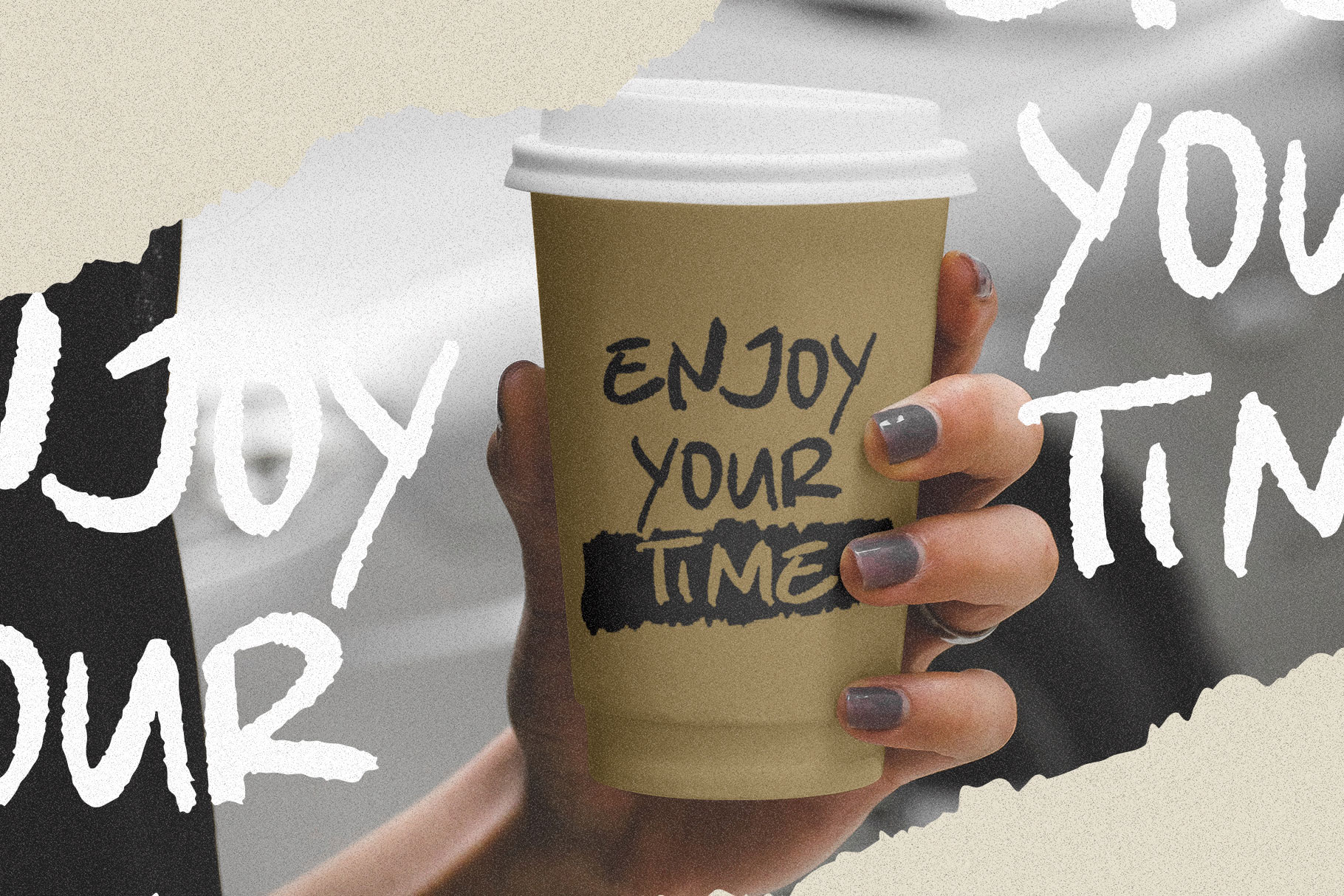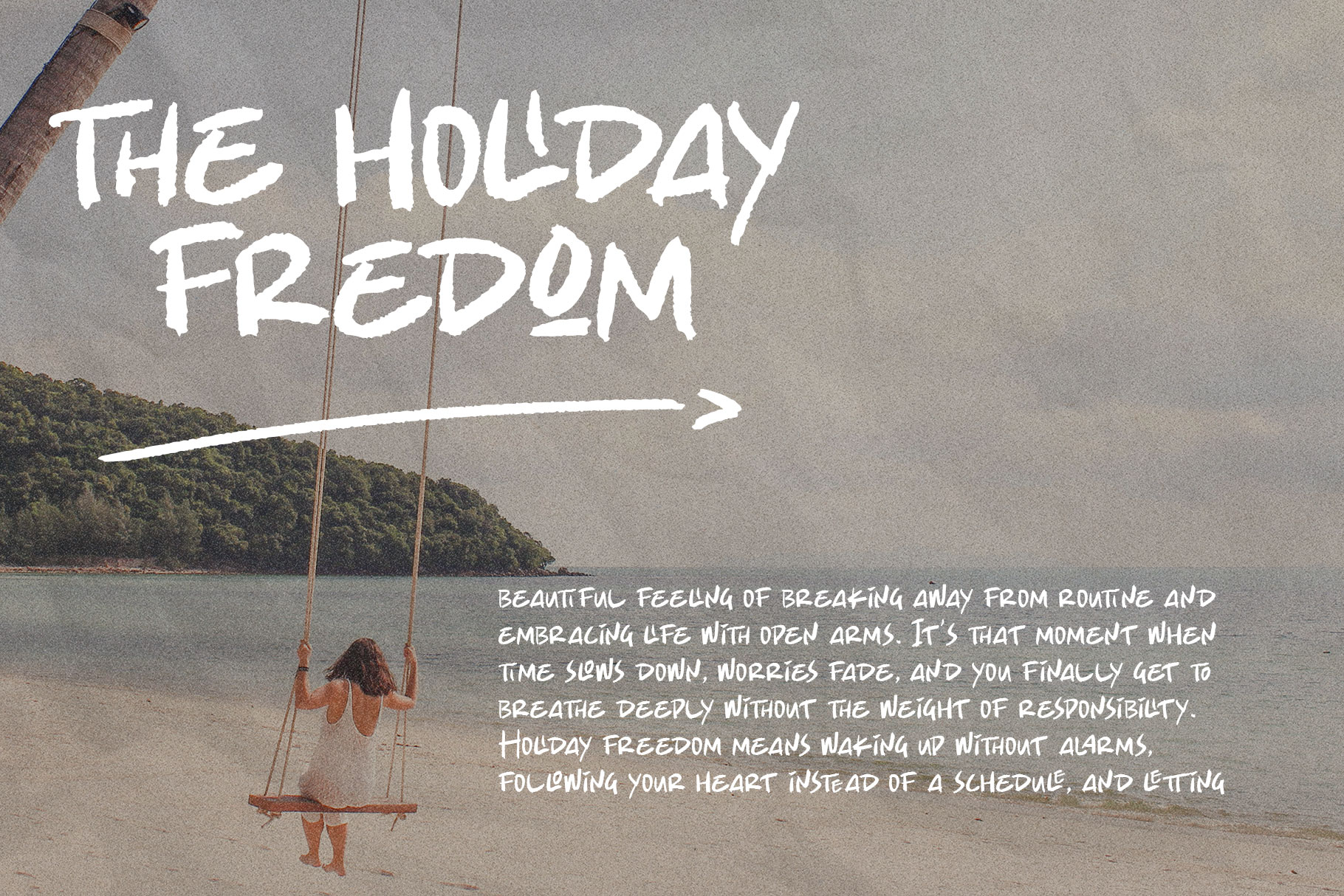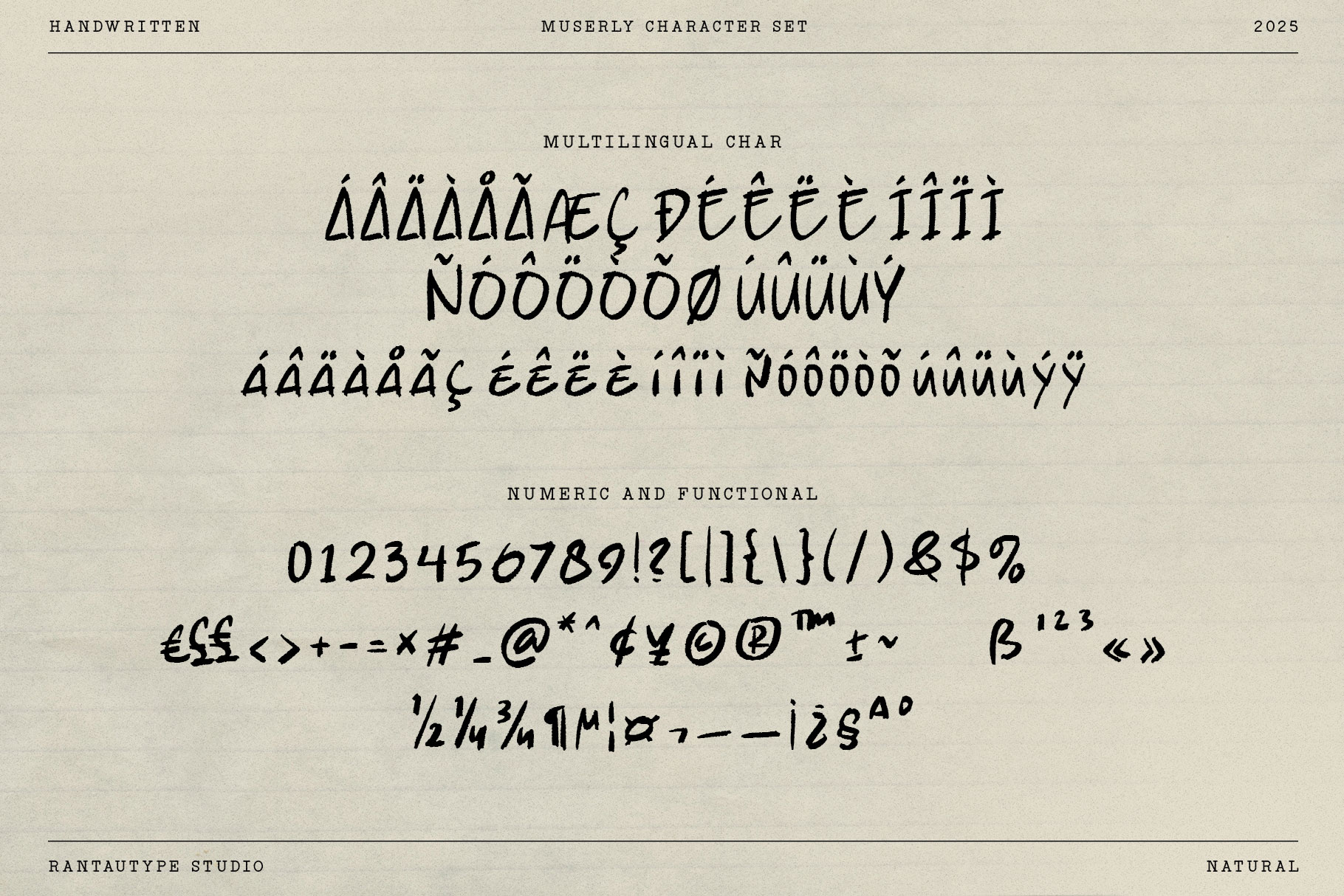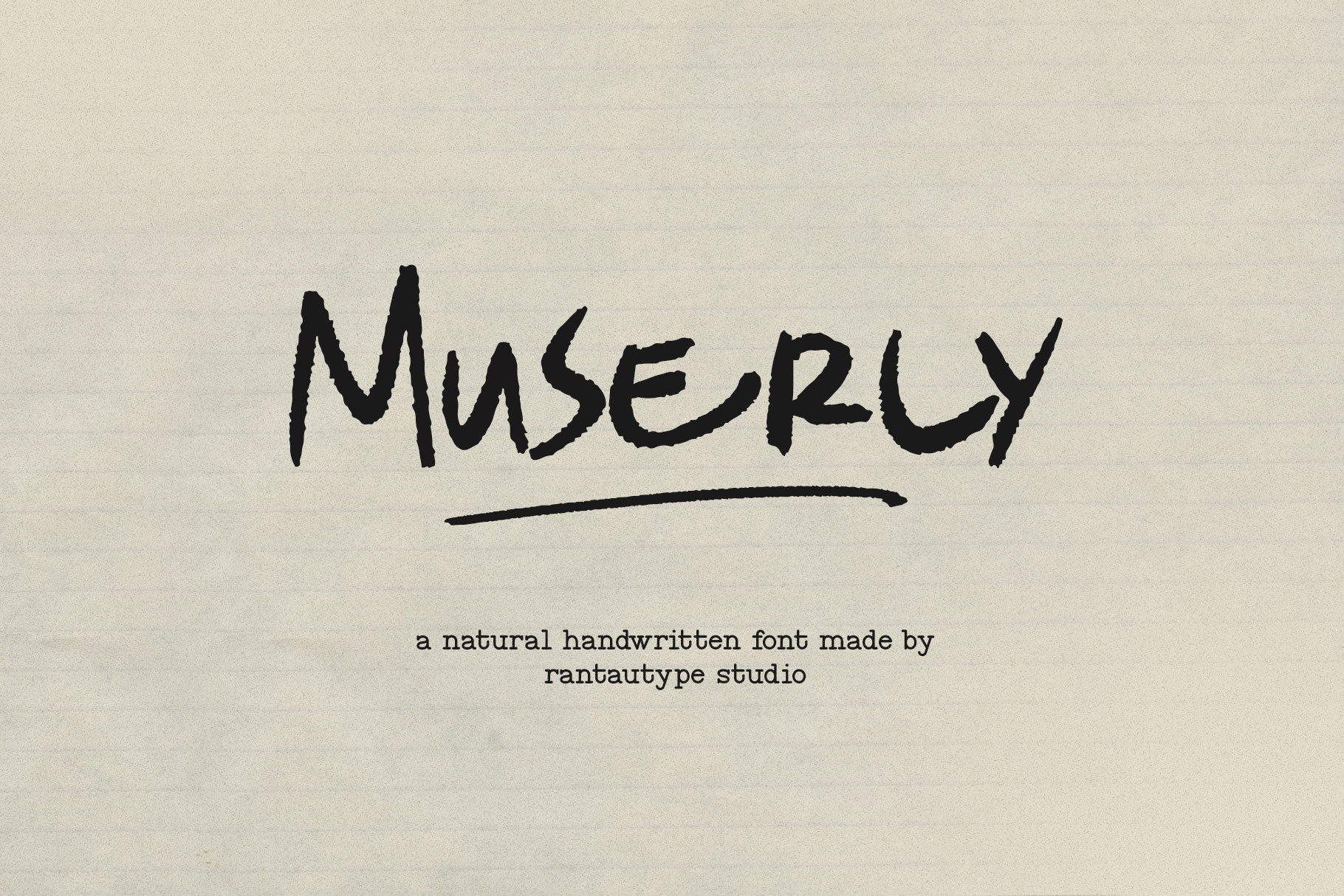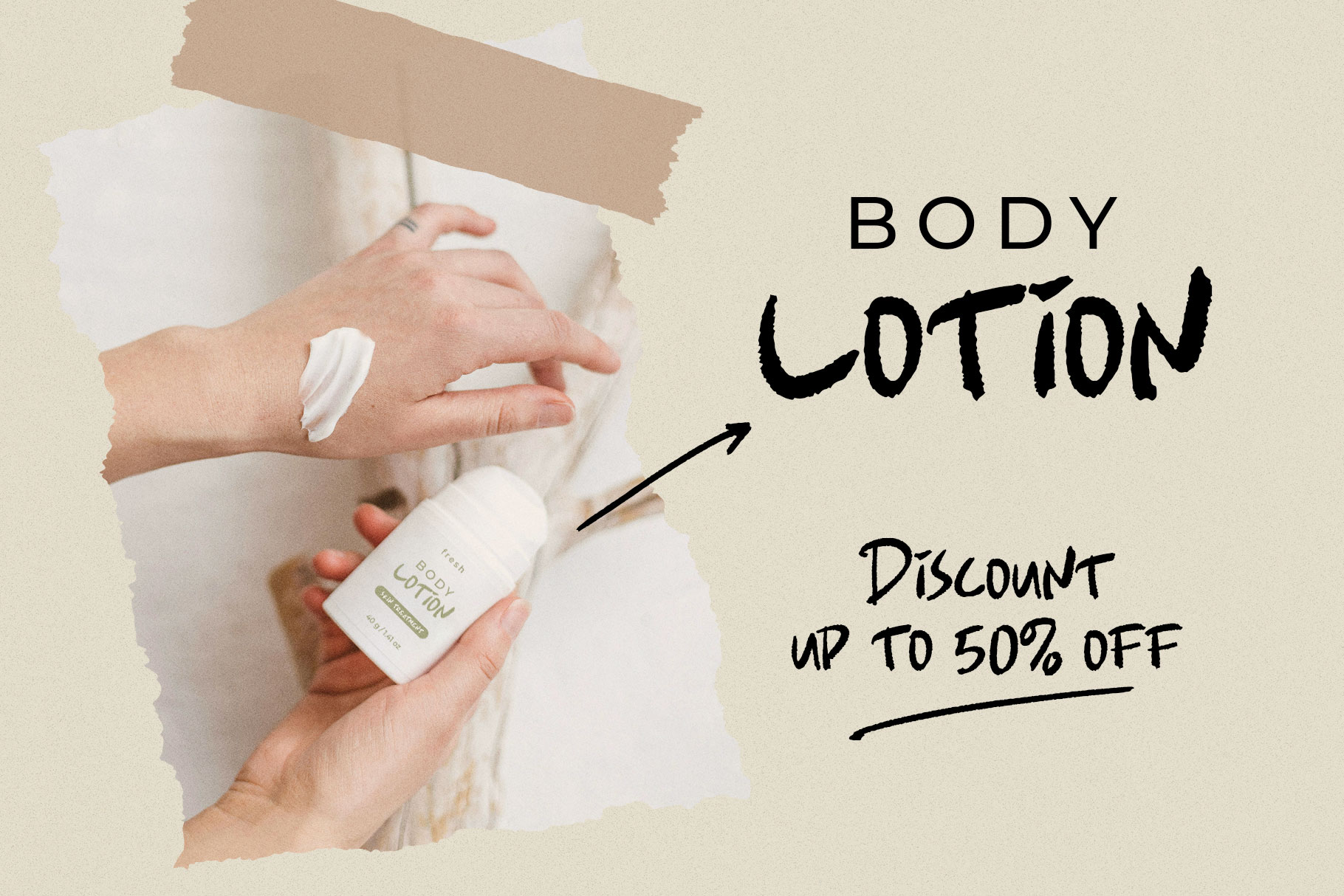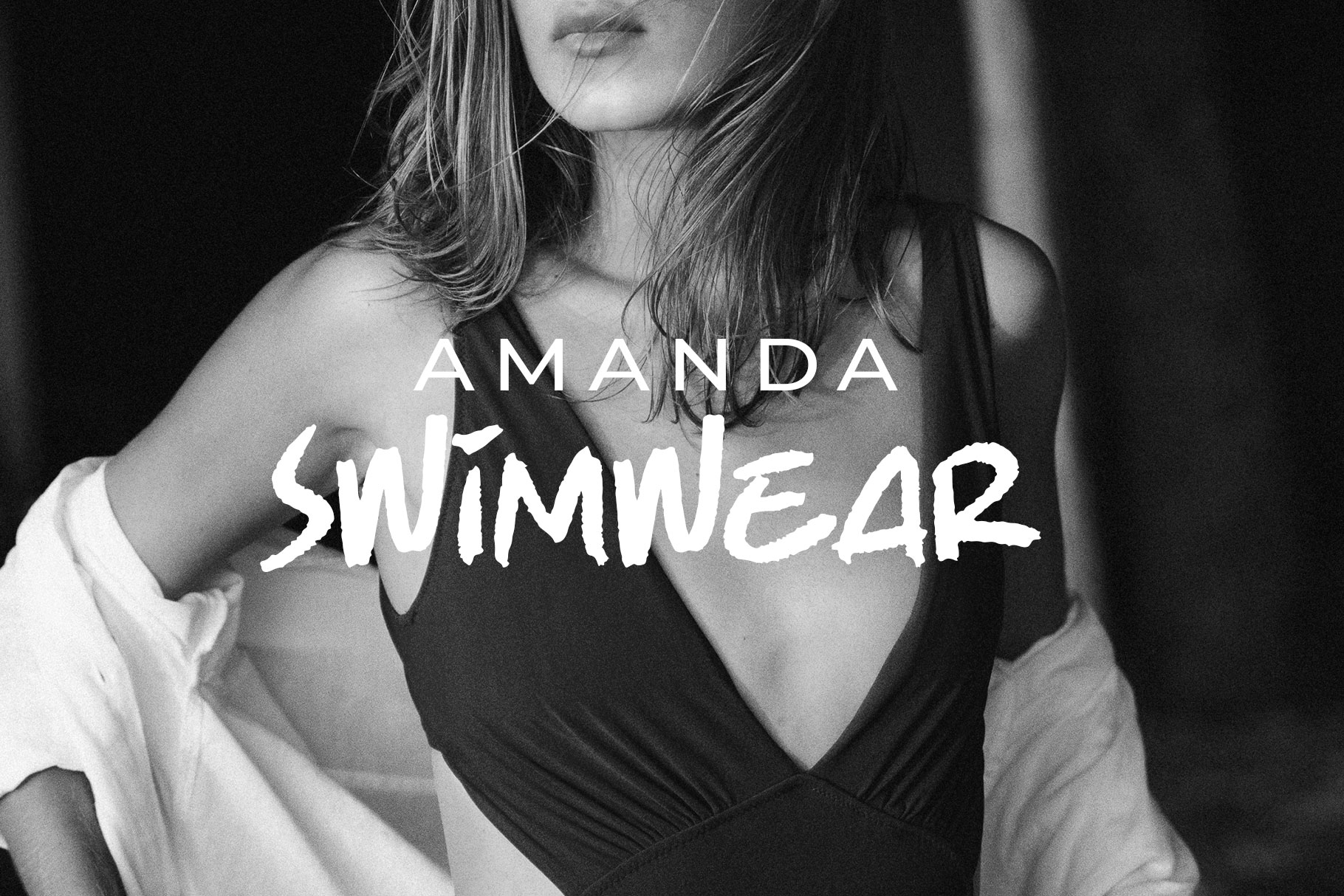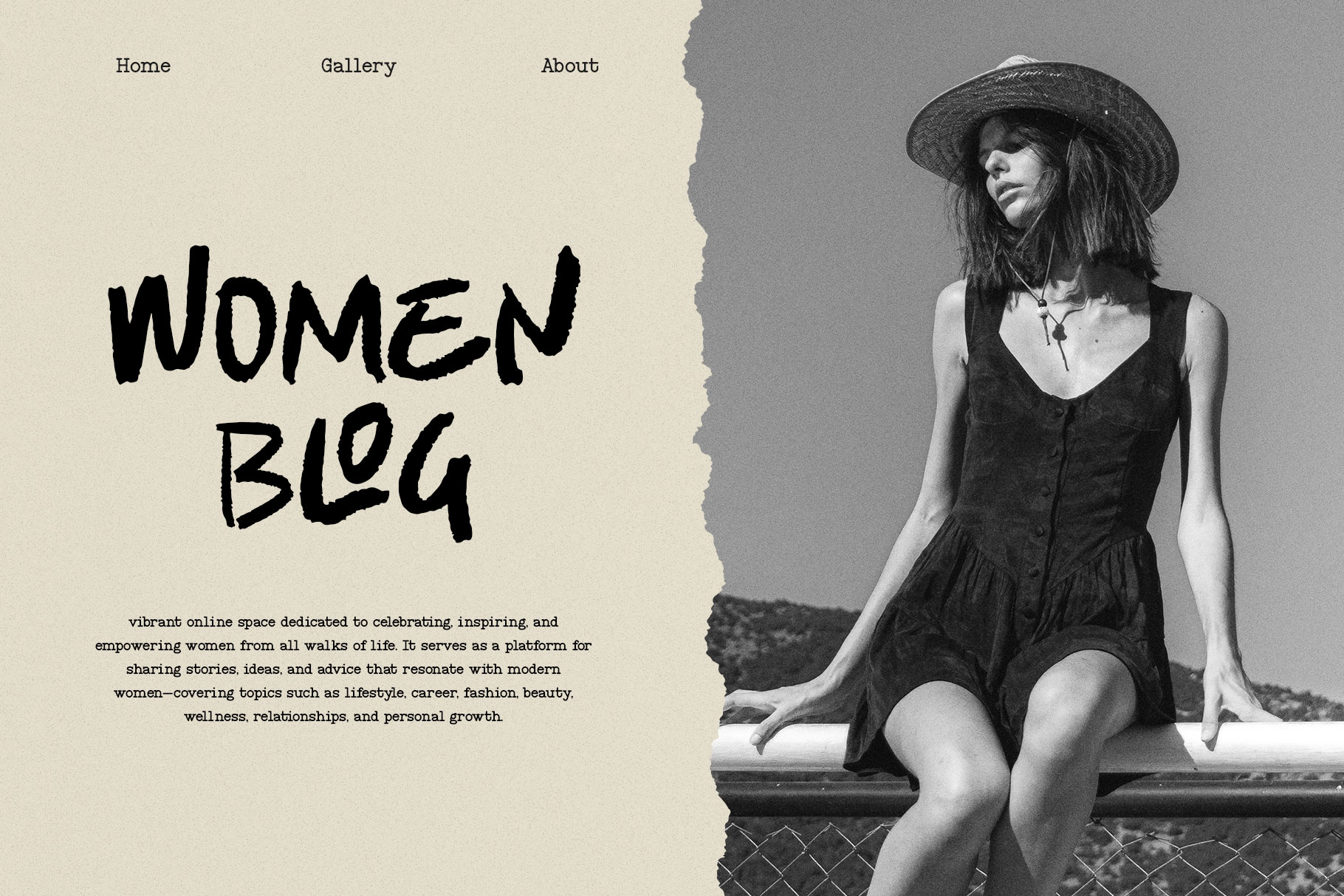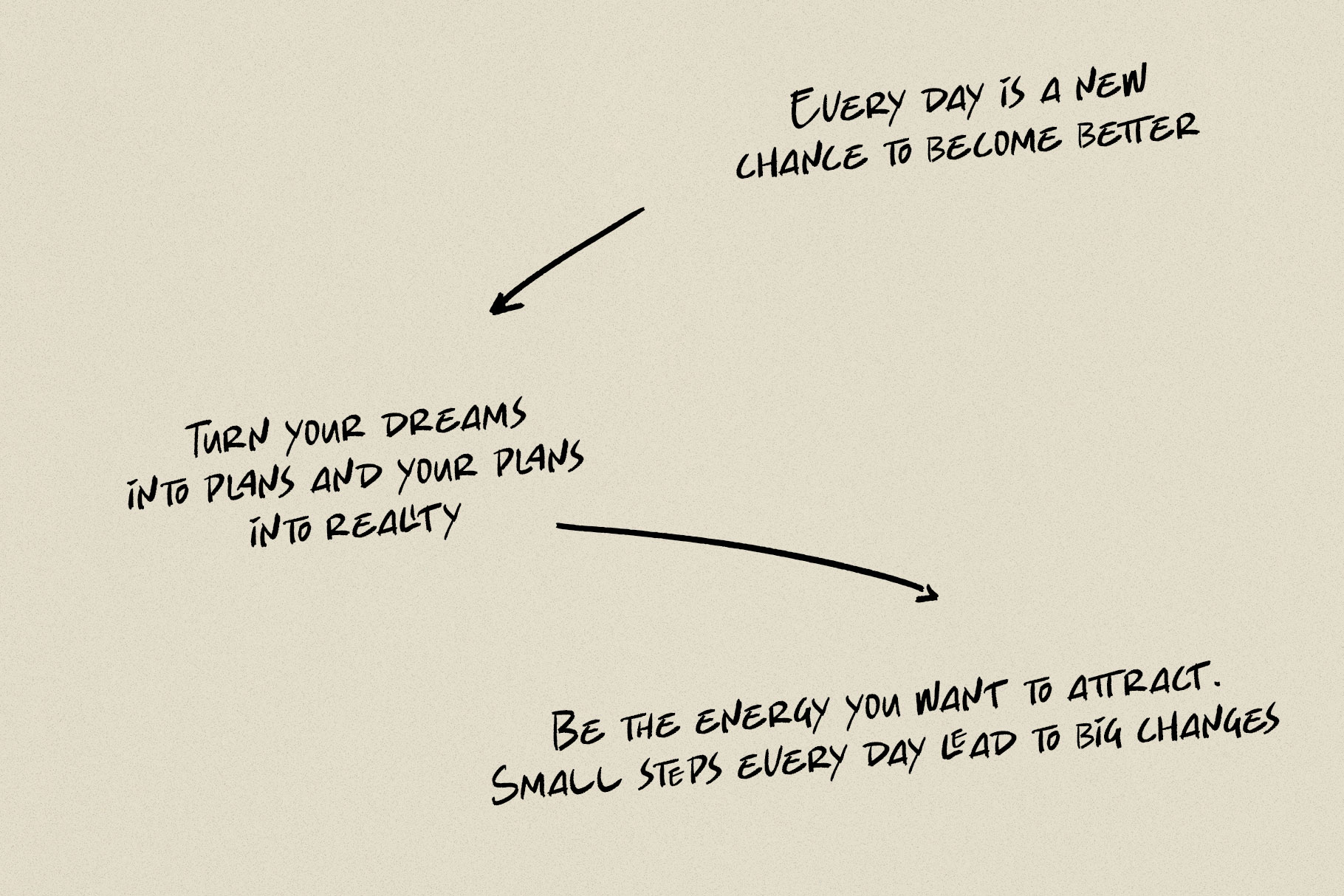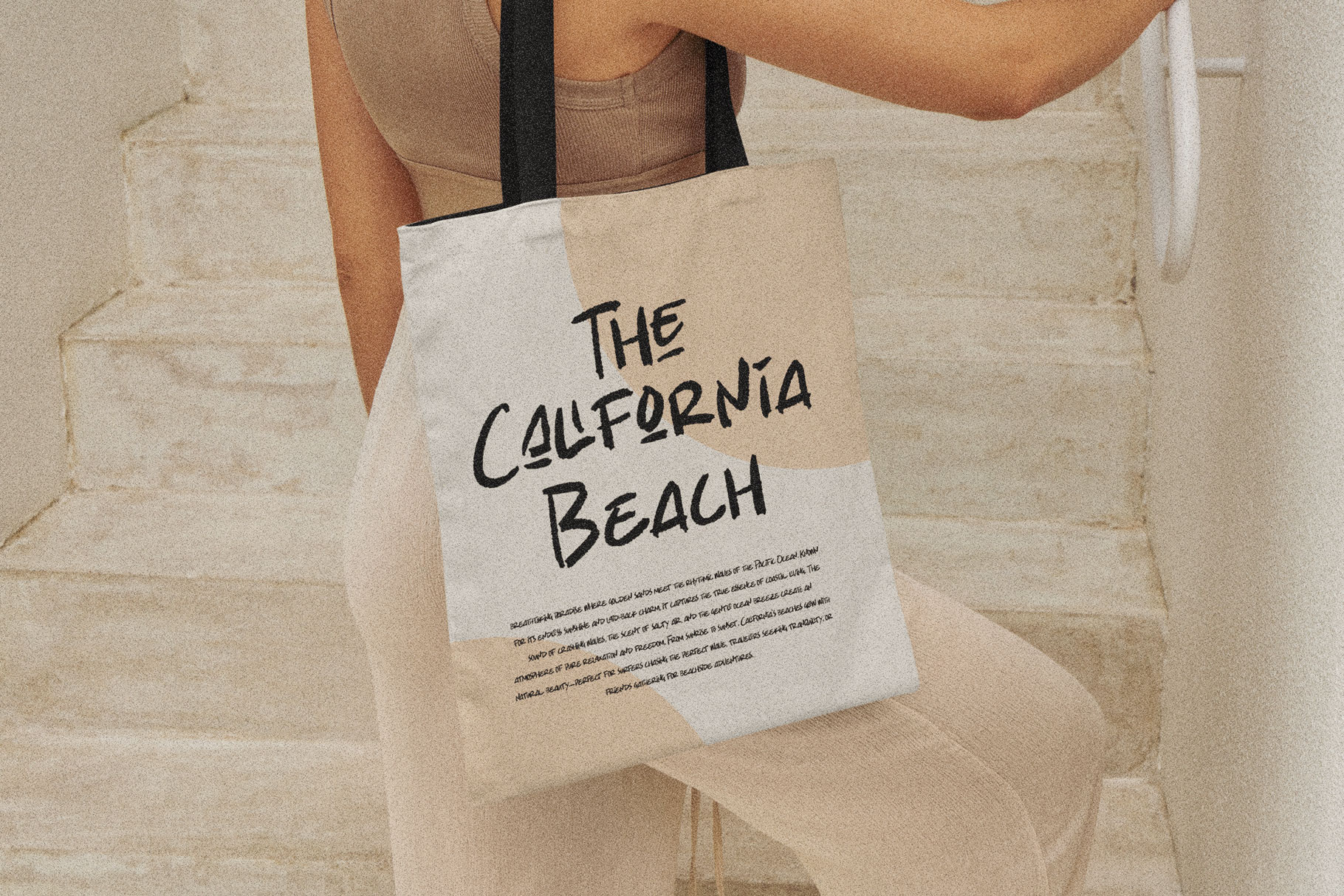
Muserly a Natural Handwritten Font
Muserly is handwritten font inspire by effortless flow of natural handwriting. Muserly is a perfectly choice for any creative endeavor, creating, modern, lifestyle design such as logotype, title, cover, branding, invitations, wedding designs, display and magazine, social media posts, advertisements, printed quotes, product packaging, corporate brand, product designs, labels, photography, watermarks, special events and any other project with natural touch.